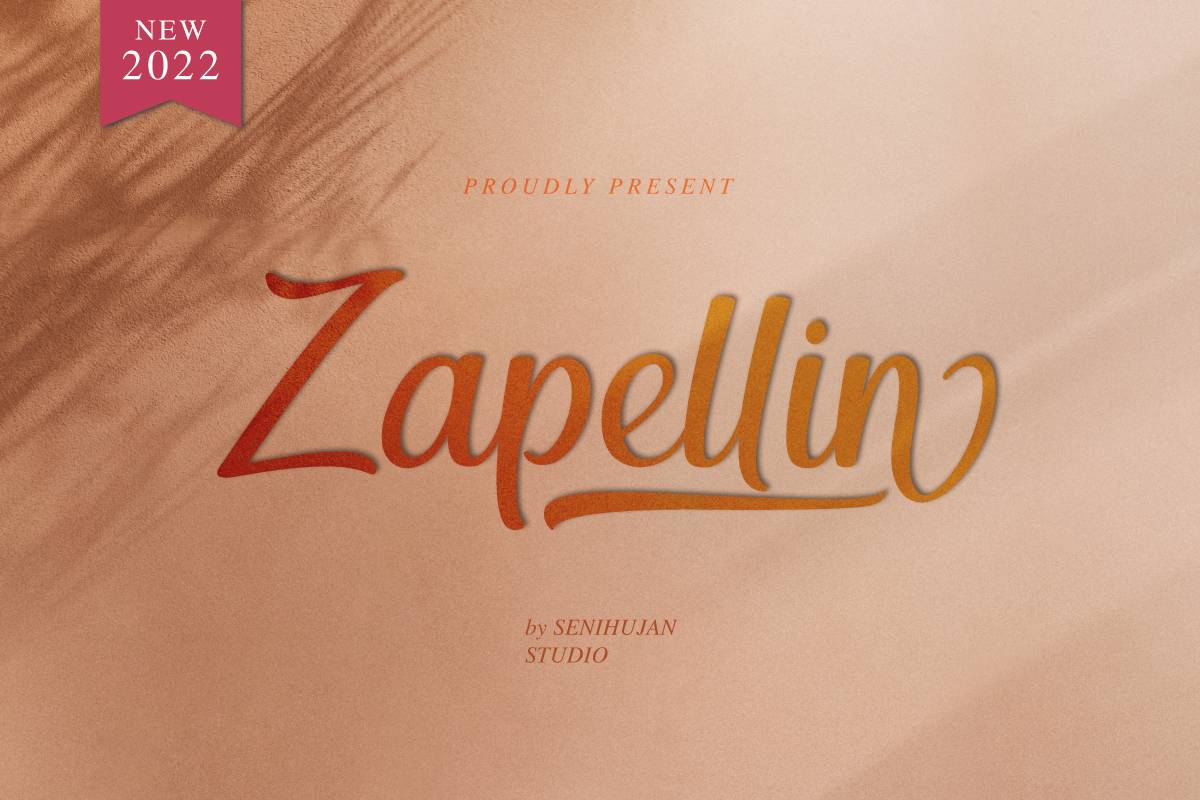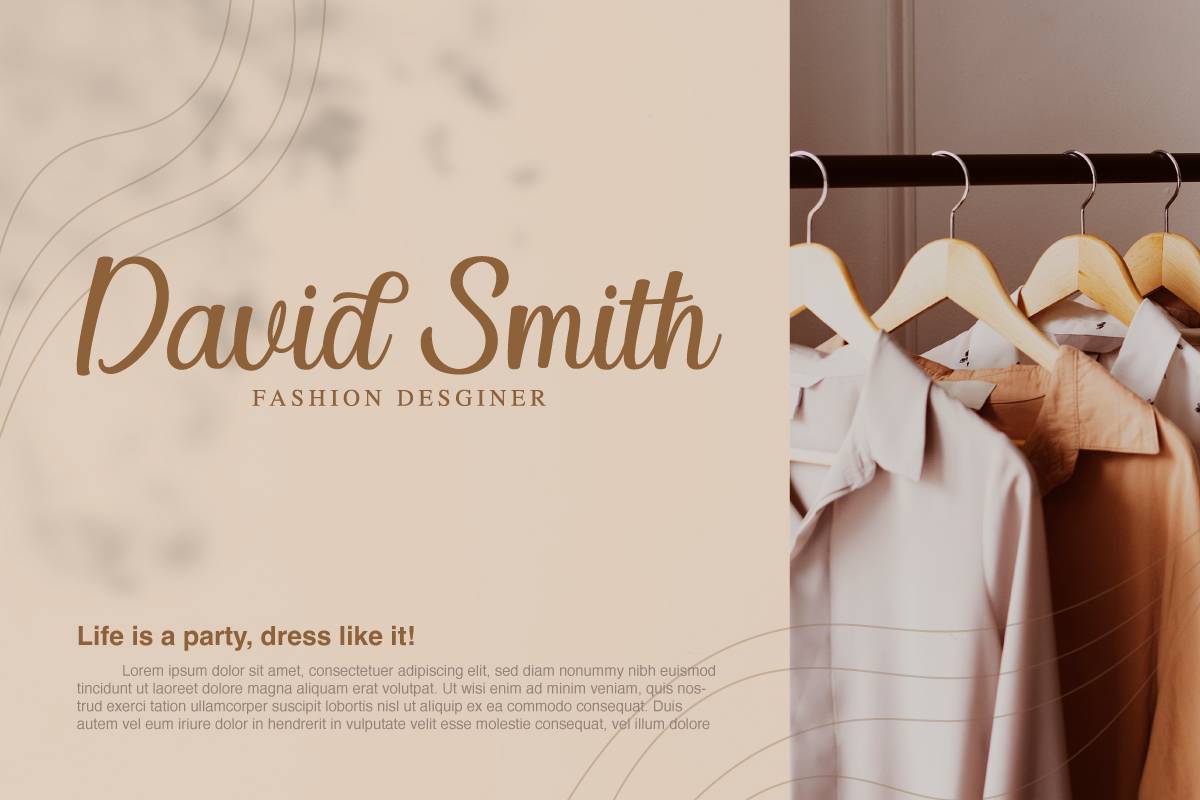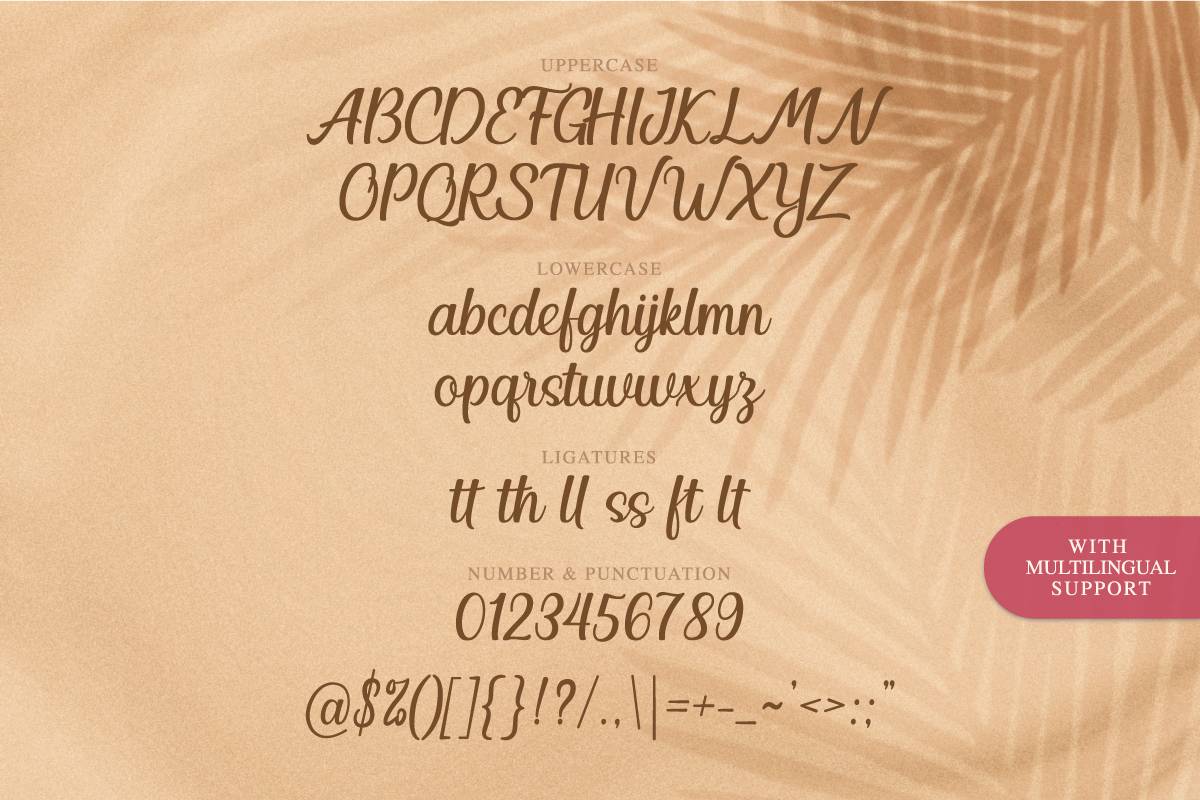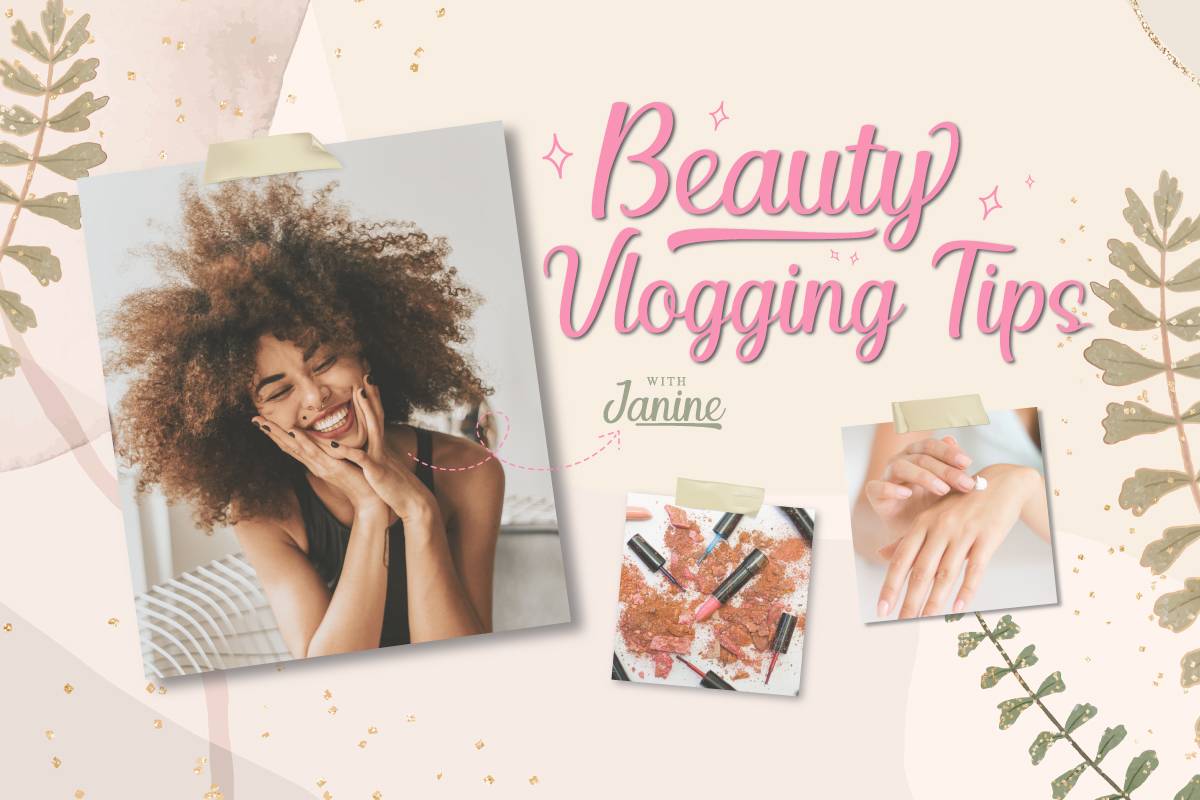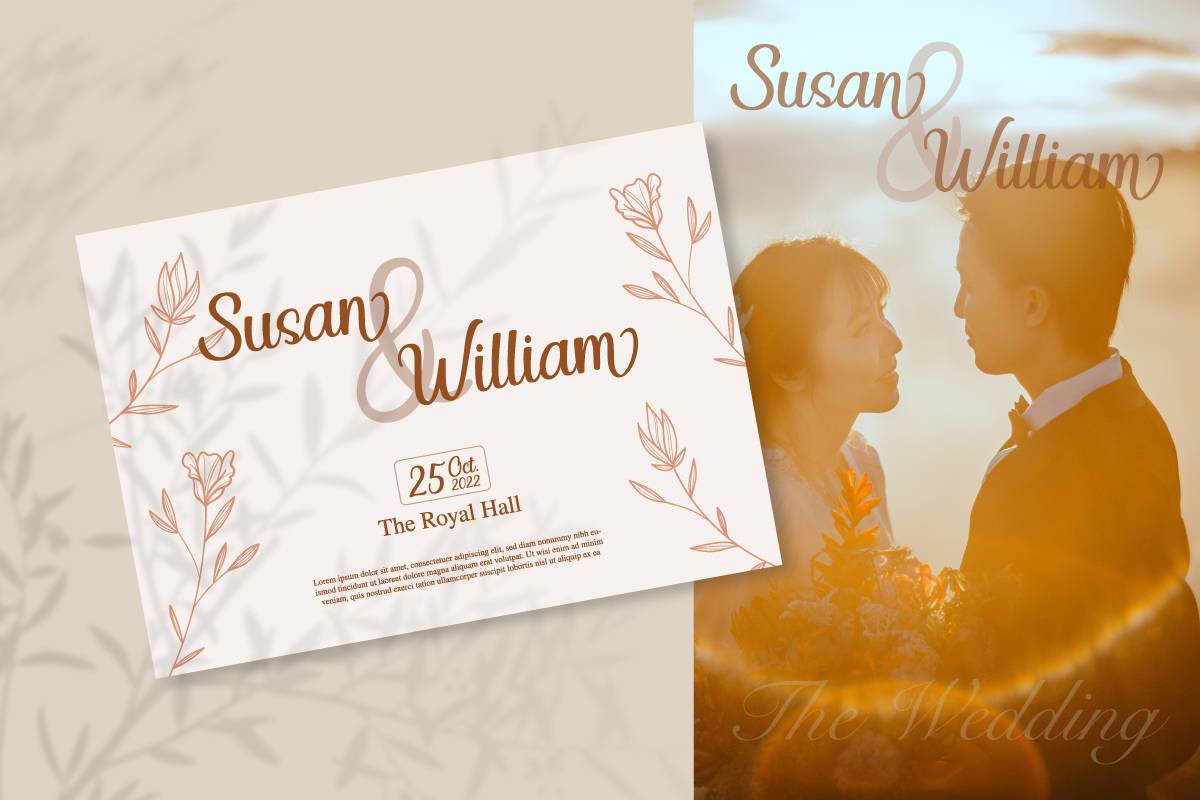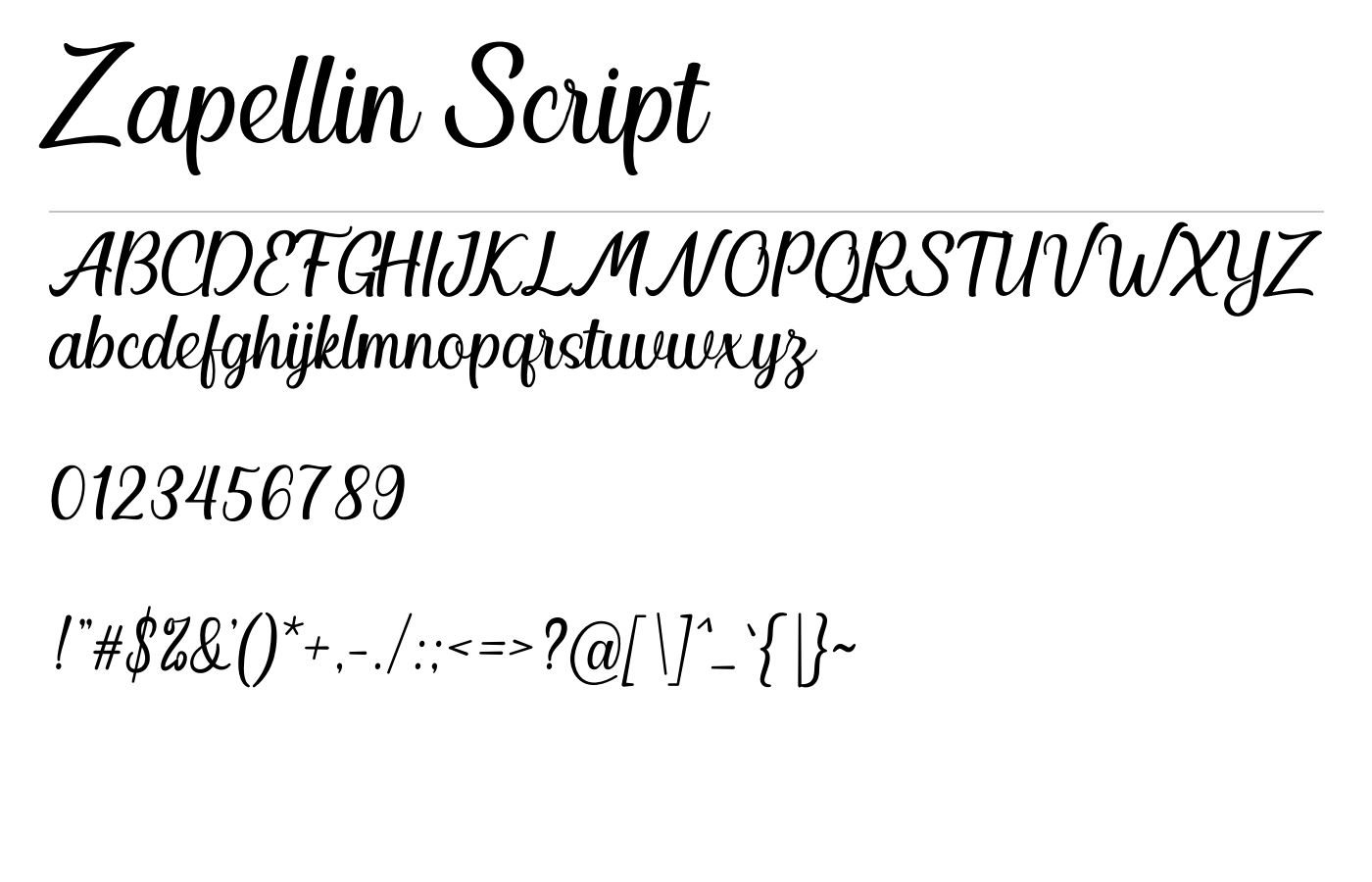
Zapellin Script is a graceful and elegant handwritten font with smooth, flowing strokes and a slightly condensed structure that offers a refined yet approachable feel. Its medium contrast and delicate curves make it ideal for feminine branding, invitations, and decorative headlines, lending a sophisticated and personal touch to any design. This font works beautifully where a stylish, modern script is needed to convey warmth and charm.
| Font family | Zapellin Font |
| Designer | Amal Yusuf |